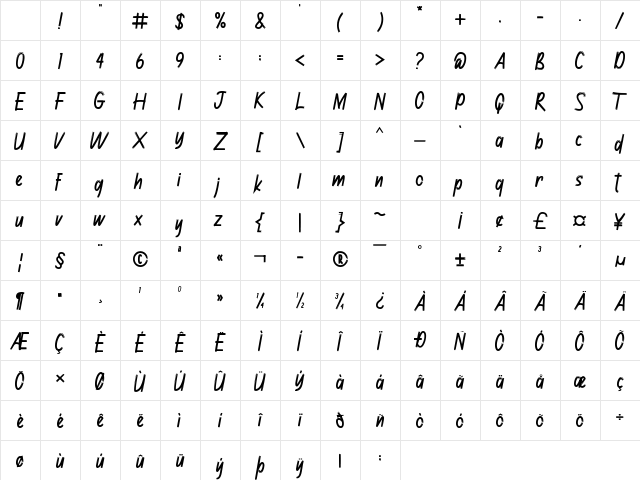
Complete Janyss Brush Regular glyph index. Displaying only characters natively supported by Janyss Brush Regular font.
Janyss Brush flows with the natural rhythm of handwritten lettering, making it ideal for designs that call for warmth and personal expression.
Font Pairing: Combine Janyss Brush with a simple geometric sans for maximum contrast - the tension between flowing curves and clean structure is a classic typographic pairing.
Pro Tip: Use Janyss Brush for short runs of text - names, titles, or taglines. Extended body copy in script faces tires the eye quickly.